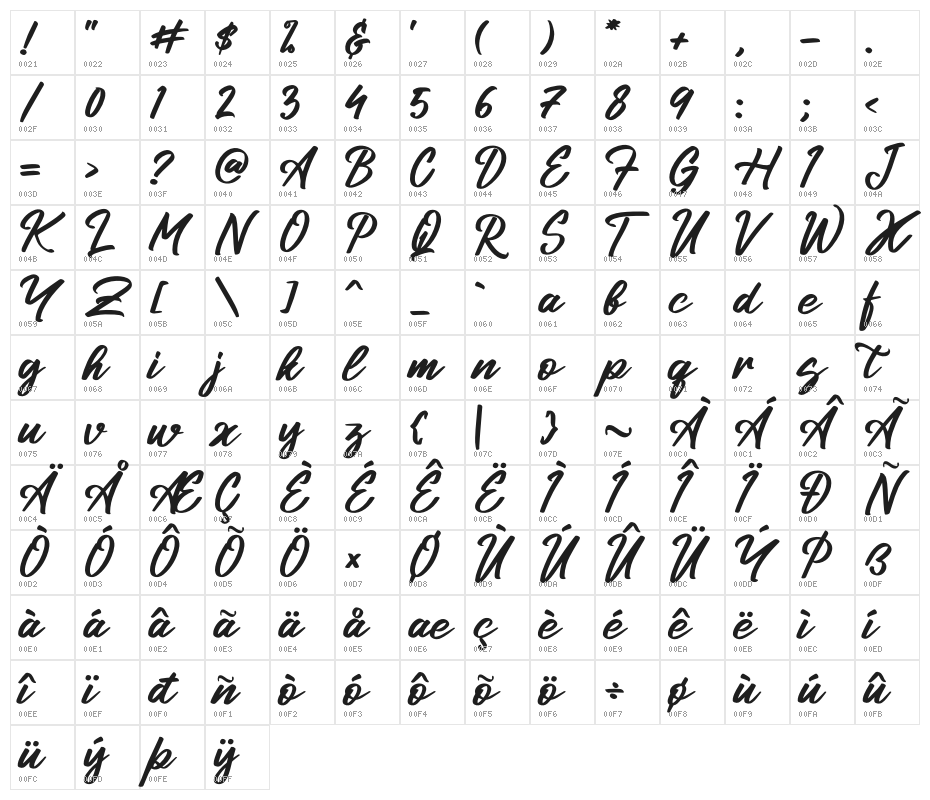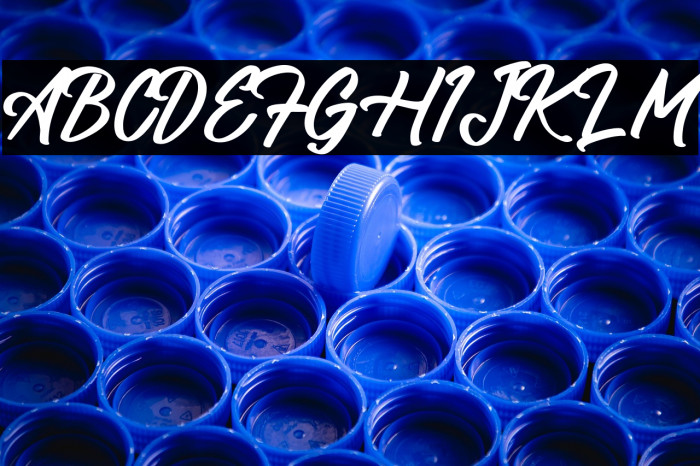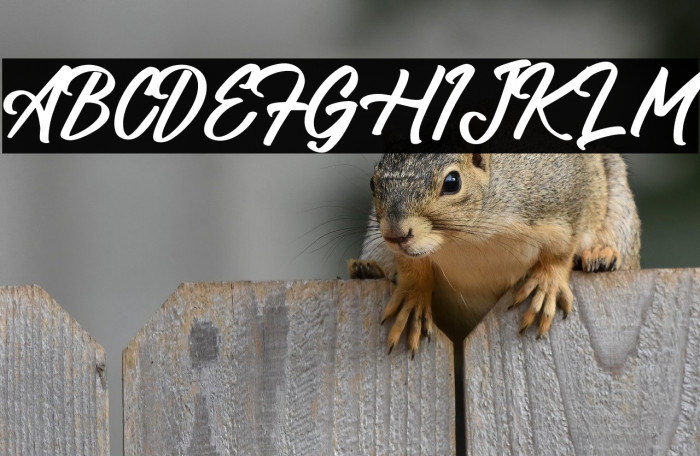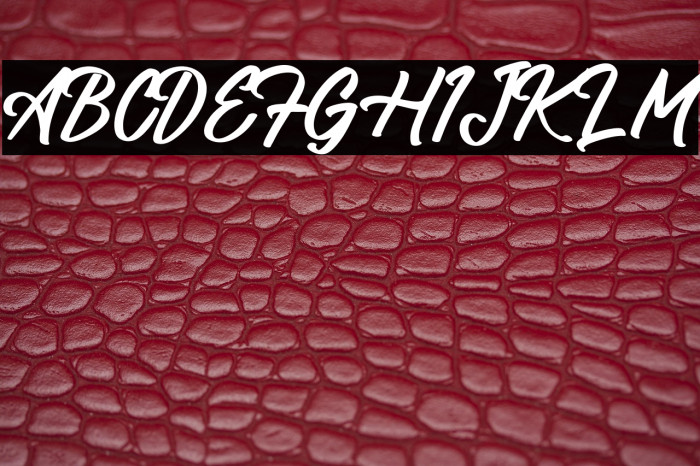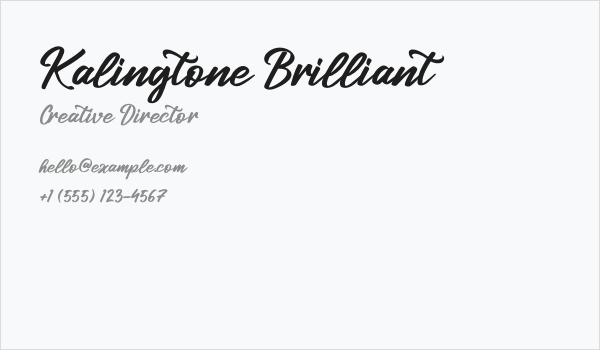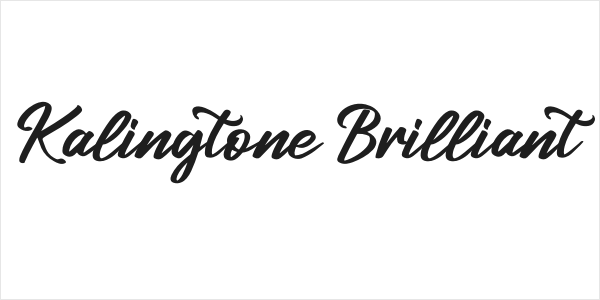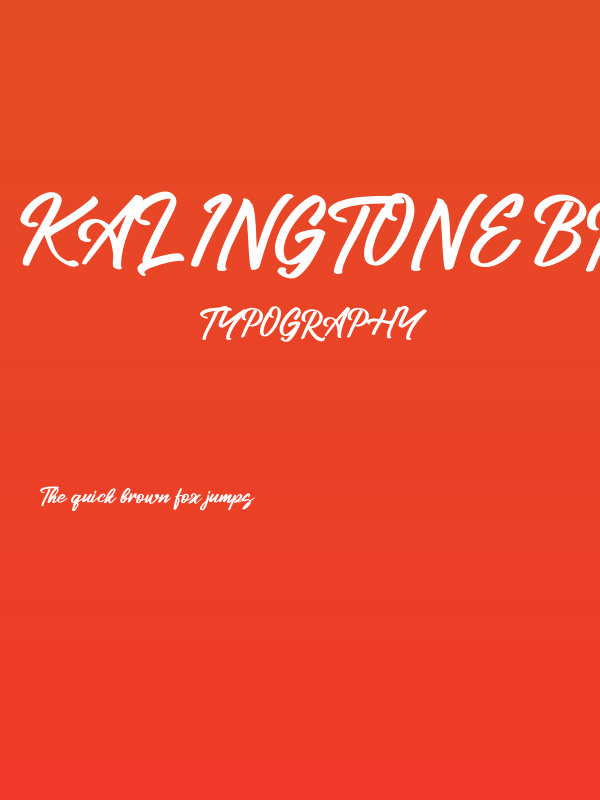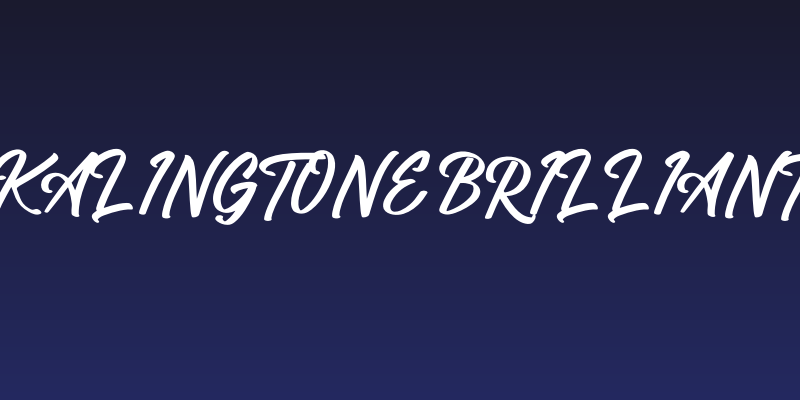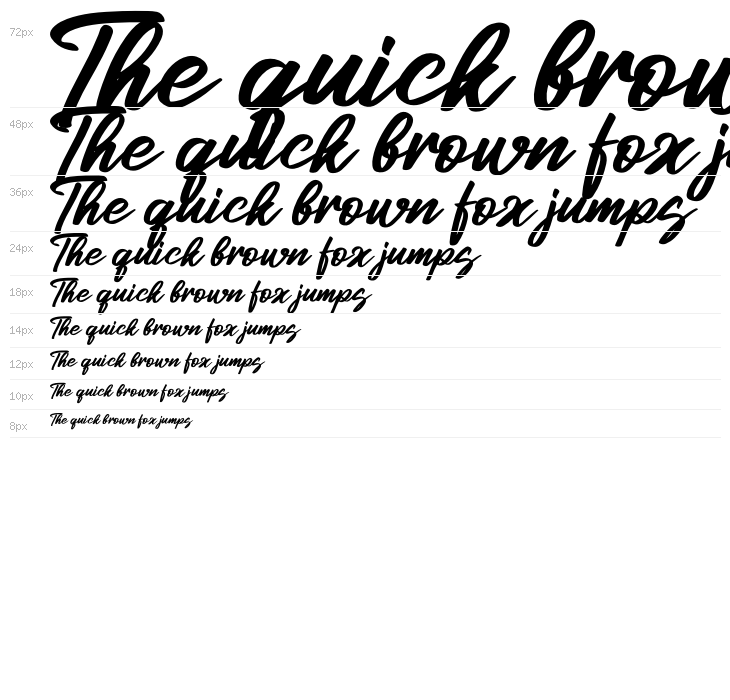
Kalingtone Brilliant Font
Kalingtone Brilliant Description
This font features a bold, cursive style with a smooth, flowing script that exudes elegance and sophistication. The uppercase letters are slightly more angular, providing a dynamic contrast to the rounded, fluid lowercase characters. The numbers and special characters maintain the same cursive flair, ensuring a cohesive look across all text. The strokes are thick and consistent, giving the font a strong presence and making it highly legible despite its decorative nature. This font is perfect for projects that require a touch of class and personality.
Use CaseLogos, Headlines, Invitations
Proposed ProjectsIdeal for wedding invitations, branding, logos, and elegant packaging designs.